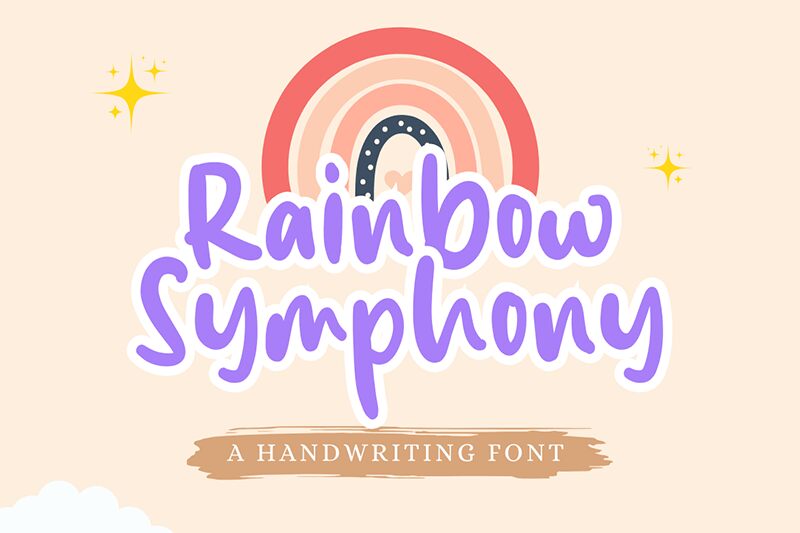
Rainbow Symphony font family by Viola Type consists of 2 beautifully crafted, handwritten font styles with a modern feel to them. As with many other similar typefaces, their character is carefree and whimsical, leaving the sometimes rigid typography rules on the shelf by creating a casual, informal, friendly, and approachable look. Moreover, the playful font is fair to both longer body texts and headings; however, the latter suit it more as the type layout's main attention grabber.
Enjoy each of Rainbow Symphony's characters by truly experimenting with this creative font. Enter the world of hand-drawn letters to find your unique logo and branding options. Complete titles for your books, magazines, stationery decorations, and invitations. Although these font letters all present the same style, they can be combined with more classic options to reach a more regular type design.